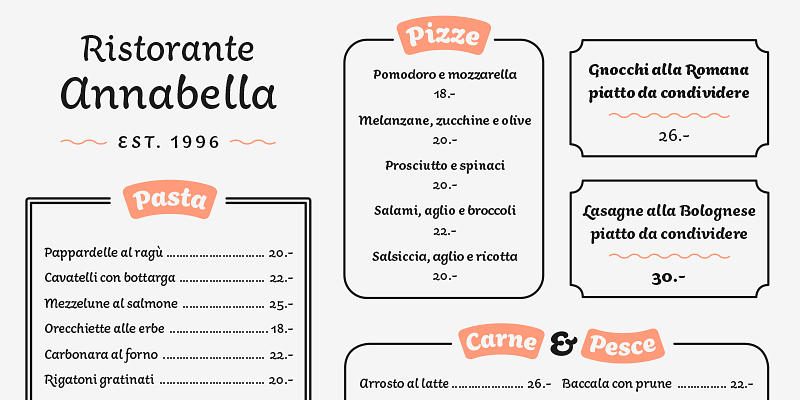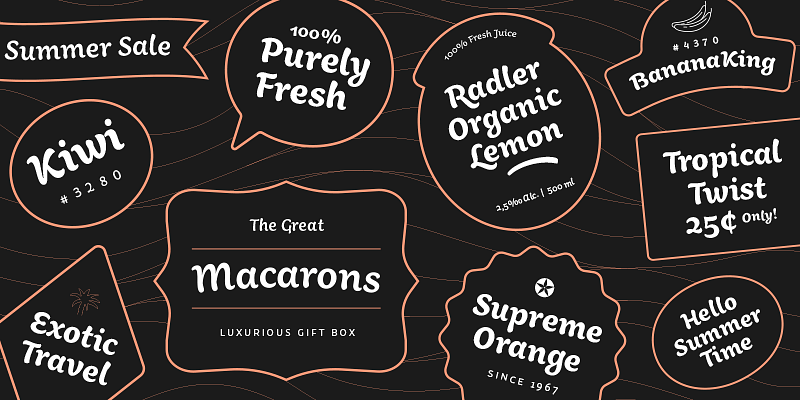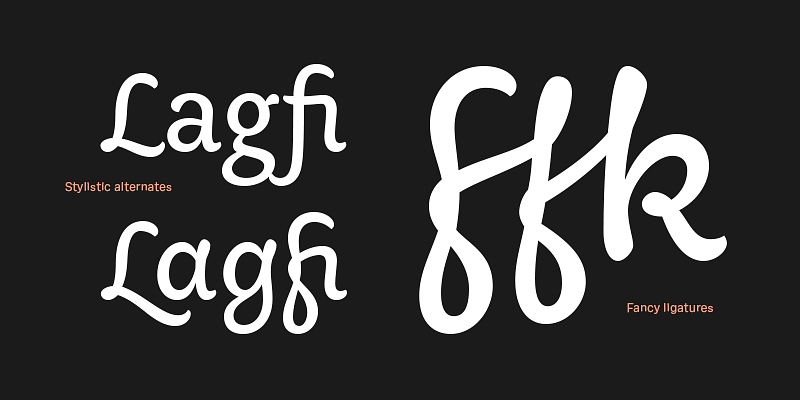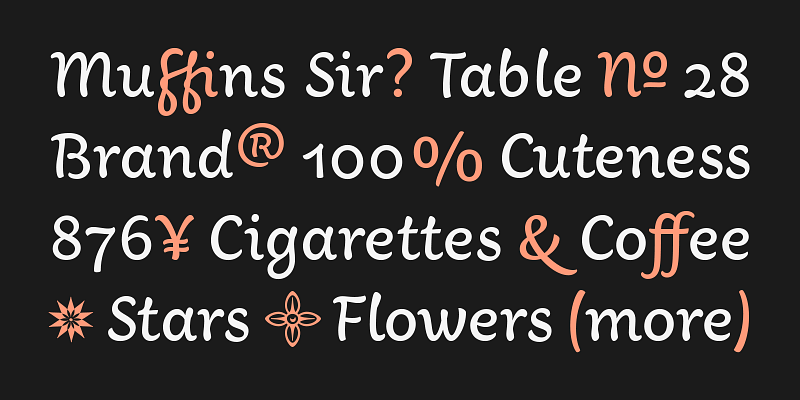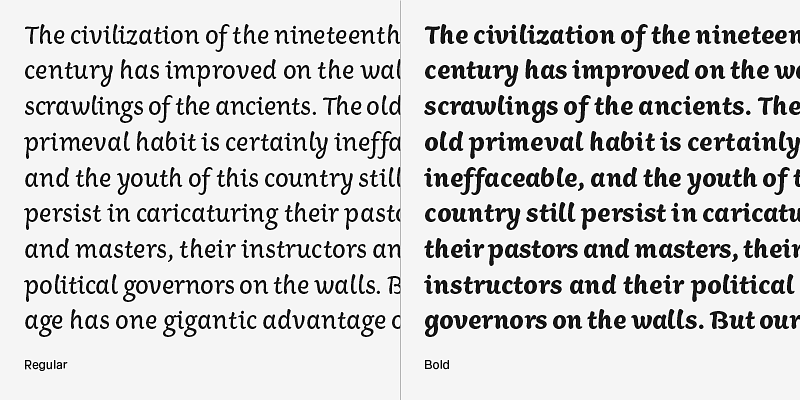
A fun, individualistic typeface that strides the line between text and display typography. Its lush and dynamic curves are designed to echo the playful Maghrebi traditions found in Aisha Arabic, while remaining a lively Latin typeface that can stand on its own.